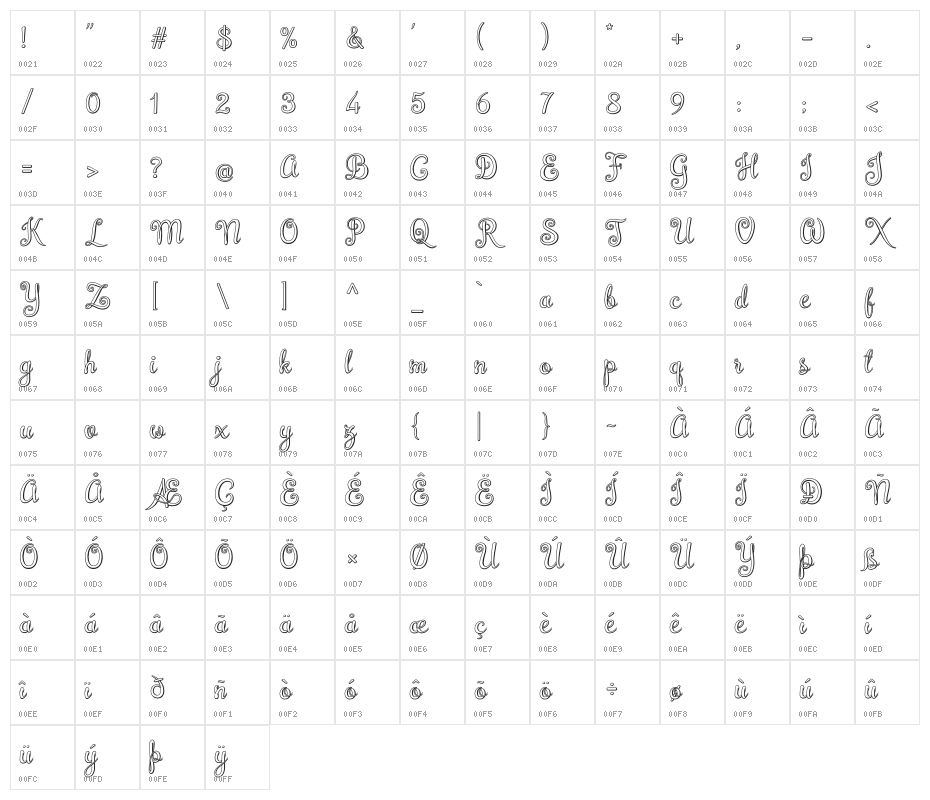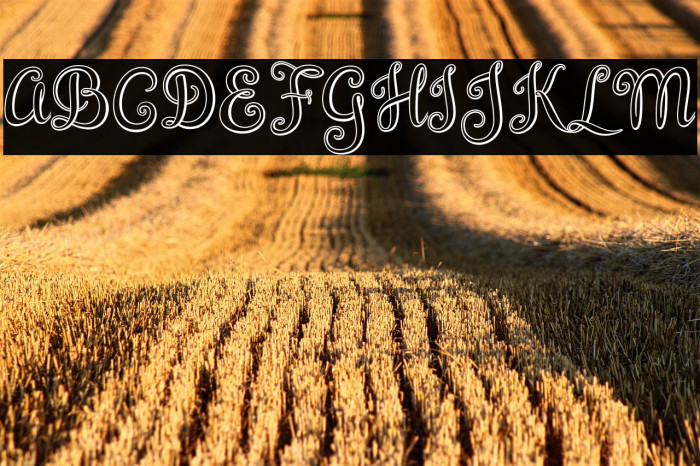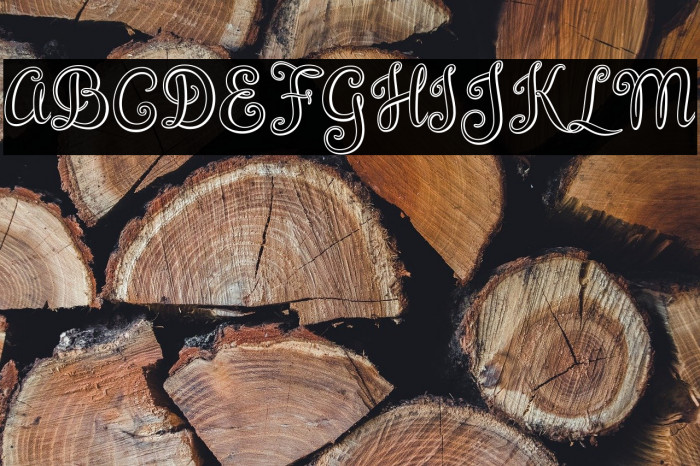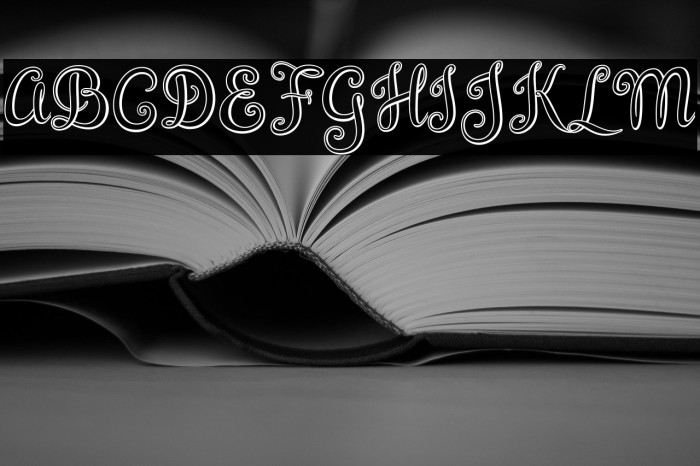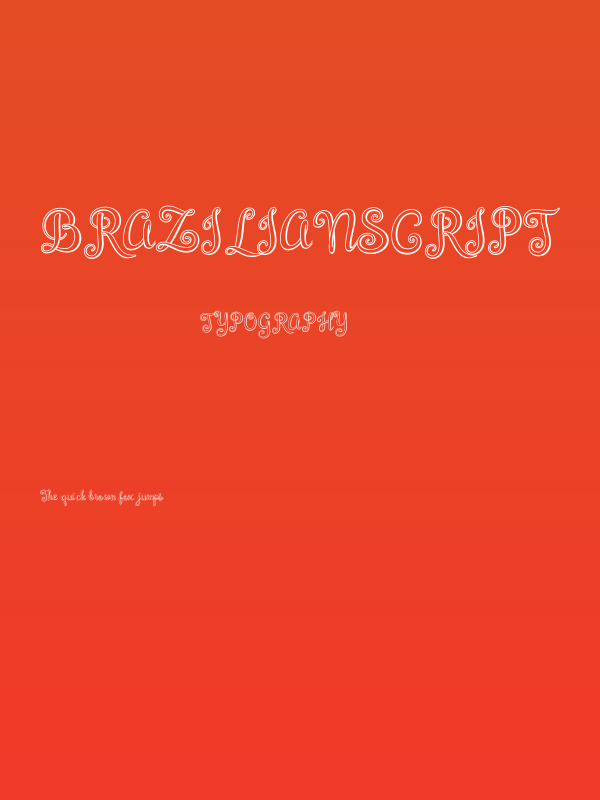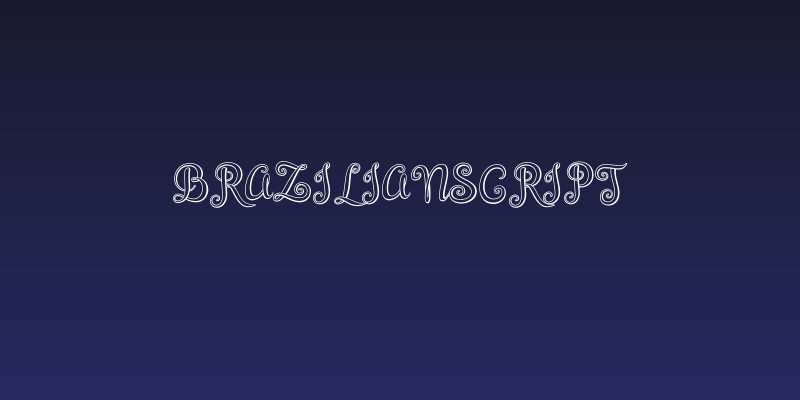
BrazilianScript Font
BrazilianScript Description
This font features an elegant and flowing script style, characterized by its intricate loops and swirls that give it a sophisticated and artistic appearance. The uppercase letters are ornate, with each character exhibiting unique embellishments that enhance its decorative quality. The lowercase letters maintain the same fluidity, offering a harmonious blend of style and readability. The numerals are consistent with the overall design, providing a cohesive look across all characters. Special characters are thoughtfully designed, ensuring they complement the font's aesthetic. This font is ideal for projects that require a touch of elegance and creativity.
| Proposed Projects | Ideal for wedding invitations, branding, greeting cards, and decorative signage. |